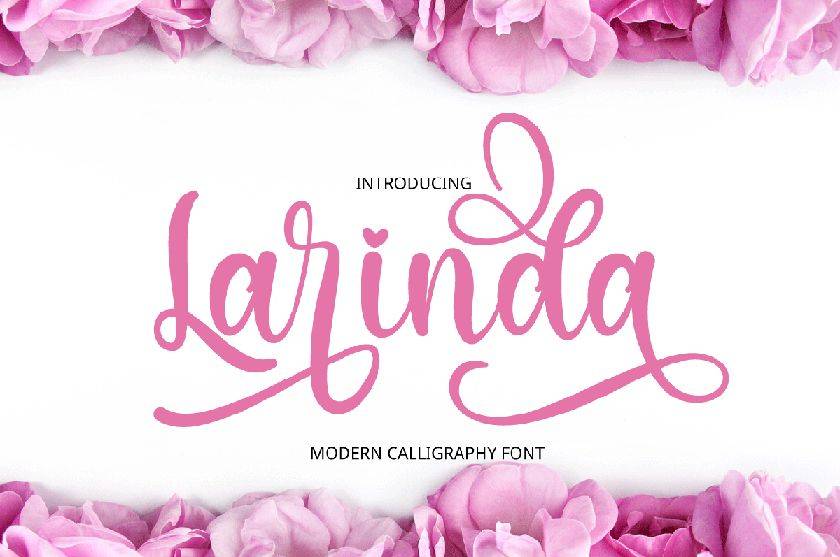
Larinda is a charming script font with a playful and elegant feel, featuring smooth, flowing strokes and whimsical details like heart-shaped dots and stylish swashes. Its medium weight and balanced x-height make it perfect for adding a personal, handwritten touch to invitations, branding, and creative projects that seek a friendly yet sophisticated vibe. This font works especially well for logos, packaging, and headlines where a warm and unique personality is desired.
Larinda Font
About Larinda Font
| Font family | Larinda Font |
| Designer | Letter art studio |